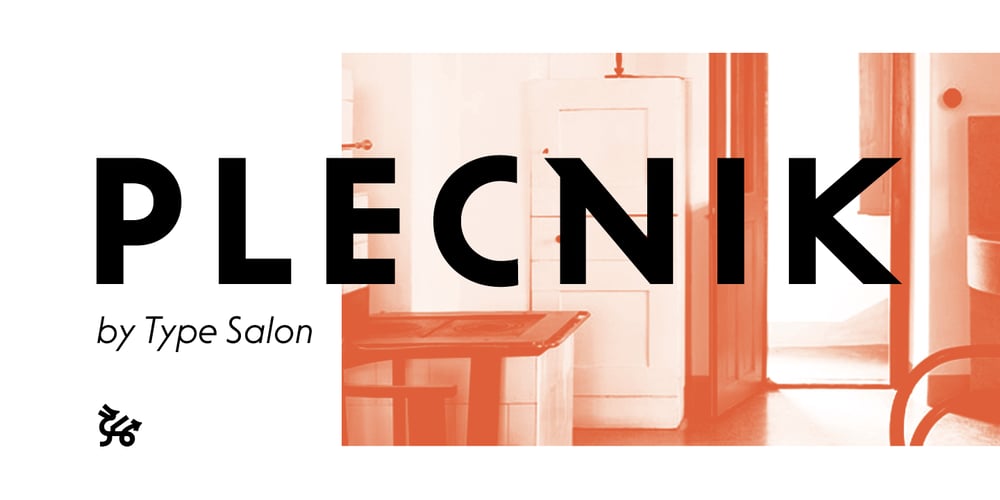
Plecnik Font Family was designed by Krista Likar, Alja Herlah and published by Type Salon. Plecnik contains 2 styles and family package options. This typeface follows the principles of the numerous and diverse architecture and graphic design works from the most famous Slovene architect Jože Plečnik, and so unfolds a piece of Slovene’s rich, yet still undiscovered typographic legacy.Typeface Plecnik is defined by classical elements and shapes. With classic proportion, humanist stroke endings and low contast, Plecnik comunicates a modern, elegant and sophisticated message. Due to Plecnik’s recognisable shapes the typeface remaines memorable and irreplaceable. When used for book and editorial designs, branding, packaging or display, Plecnik will perform in its purpose. Designed in four weights and accompanied with italics, Plecnik also offers a Display style, which is even more distinctive and perhaps even more attributable to Plečnik.